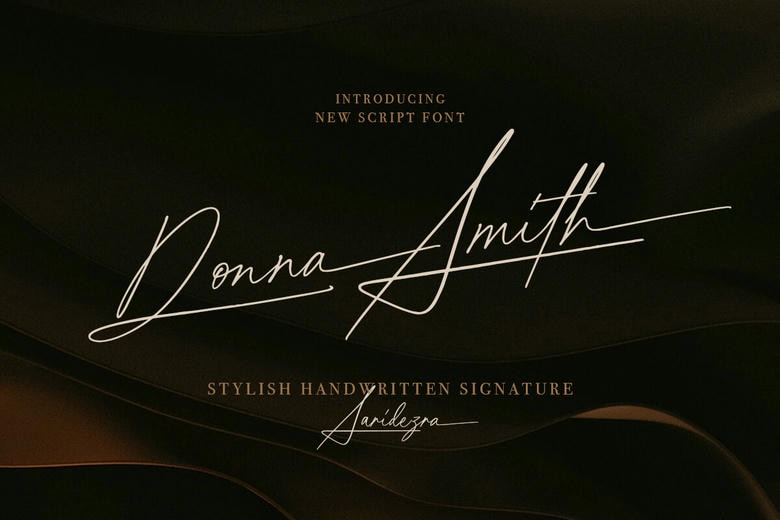
Donna Smith Font
Donna Smith will impress the audience with its script font. This font is sharp and the outlines have been made in a very refined manner which makes it highly informational. Regardless of the particular problem, this font will undoubtedly be a valuable addition to your font collection since it has great potential to enrich any work.
Donna Smith Handwritten Script Font